Birthday and baby shower invitations get to be a lot more playful than a wedding invitation — there’s room for bright color, rounded shapes, and fonts with real personality instead of restrained elegance. These ten lean into that, from bubbly display fonts to casual handwriting. If you’ve been searching for free fonts for birthday invitations, these picks are curated with exactly that in mind.
Quick Comparison
| Font | Style | Best For |
|---|---|---|
| Pacifico | Retro brush script | Fun, energetic birthday invites |
| Fredoka | Rounded bouncy sans | Kids’ party invites |
| Baloo 2 | Rounded chunky display | Bold, playful headline text |
| Caveat | Casual handwriting | Personal, handwritten-feeling notes |
| Chewy | Bubbly bold display | Kids’ birthday themes |
| Grand Hotel | Elegant script | Milestone and adult birthdays |
| Comfortaa | Rounded geometric sans | Modern baby shower invites |
| Sacramento | Casual monoline script | Baby shower and gender reveal invites |
| Amatic SC | Hand-drawn condensed display | Whimsical party invites |
| Quicksand | Rounded geometric sans | Clean body text for any invite |
Pacifico
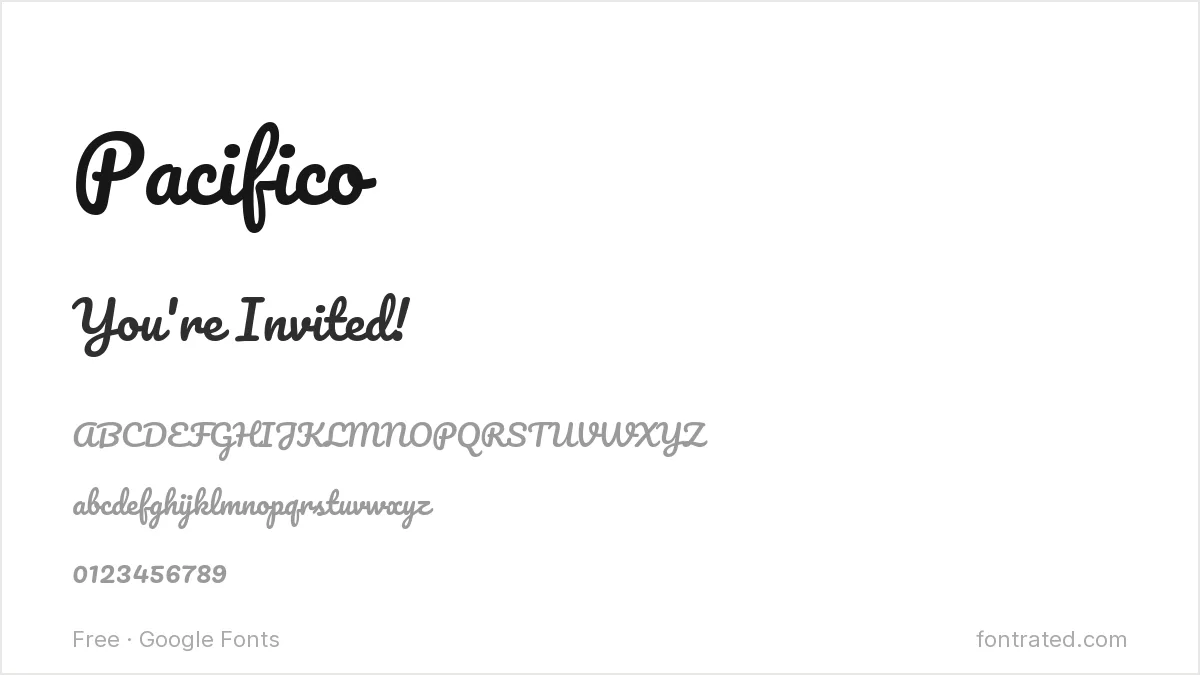
A retro brush script inspired by 1950s American surf culture, Pacifico brings an instantly recognizable, easygoing energy that suits a birthday party better than a more formal calligraphy script would.
Fredoka
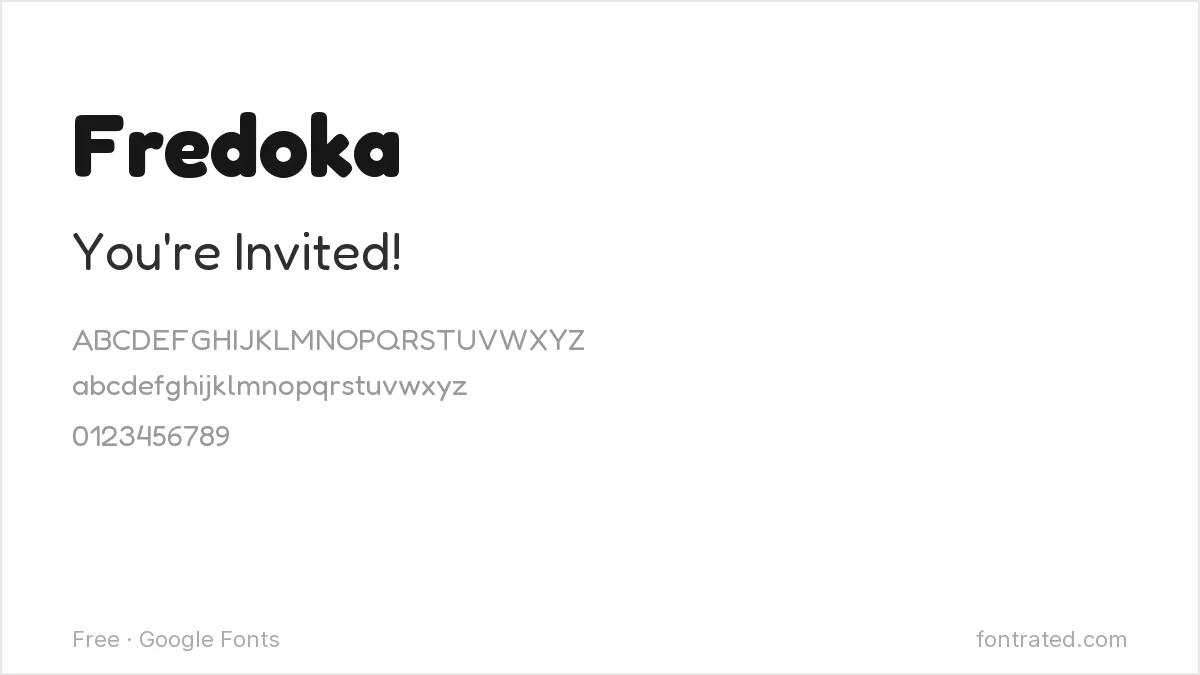
Fredoka’s rounded, friendly letterforms read as young and playful at heavier weights — a natural fit for a kids’ birthday or first-birthday invitation.
Baloo 2
A rounded, extra-bold display font originally designed for Indian scripts before growing a Latin counterpart, Baloo 2 has a chunky, toy-like quality that works well for a big, playful headline like a name or age.
Caveat
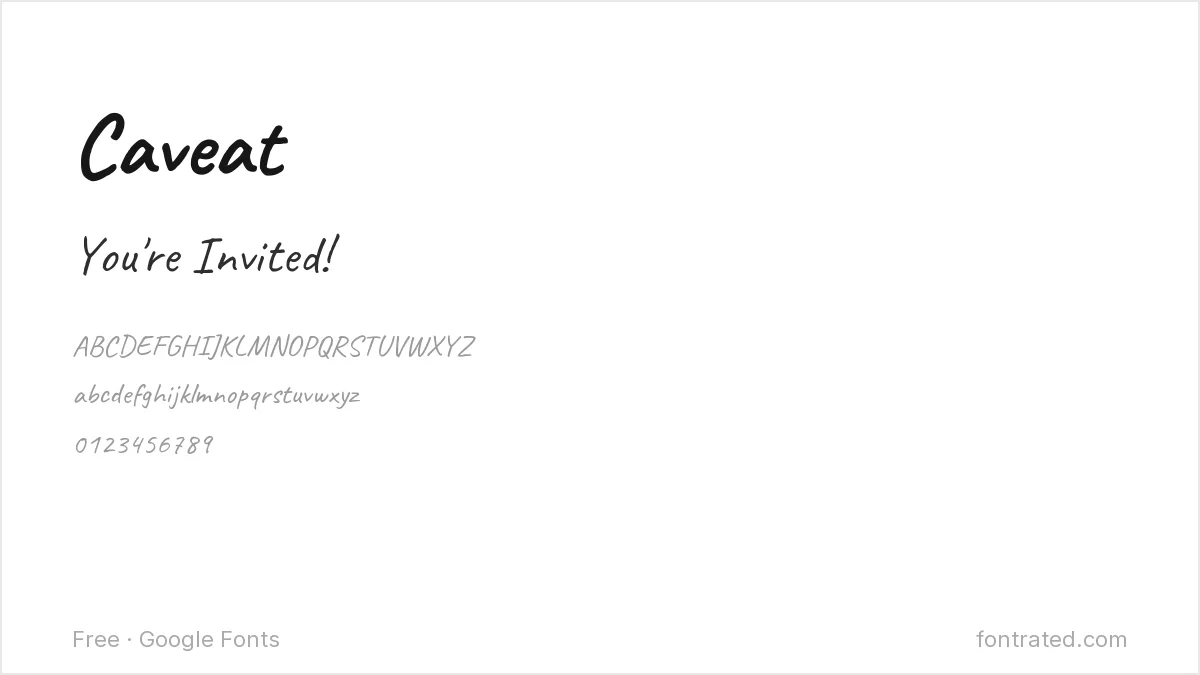
A natural handwriting font with real variation between letters, Caveat avoids the too-perfect look of a script font — good for a personal note or a casual “you’re invited” line.
Chewy
A bubbly, rounded display font with a slightly cartoonish bounce, Chewy suits a kids’ birthday theme that wants to feel fun and a little silly rather than polished.
Grand Hotel
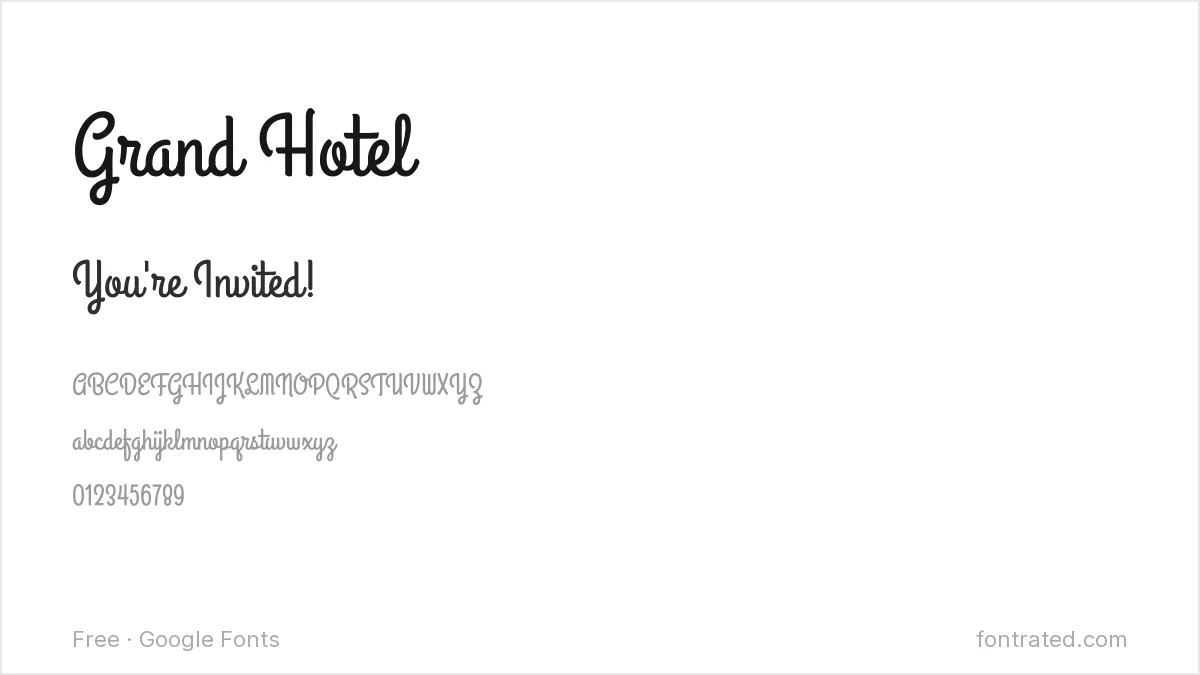
A more refined, flowing script than most of the fonts on this list, Grand Hotel works well for a milestone birthday (30th, 50th) or any adult celebration that wants a touch more elegance.
Comfortaa
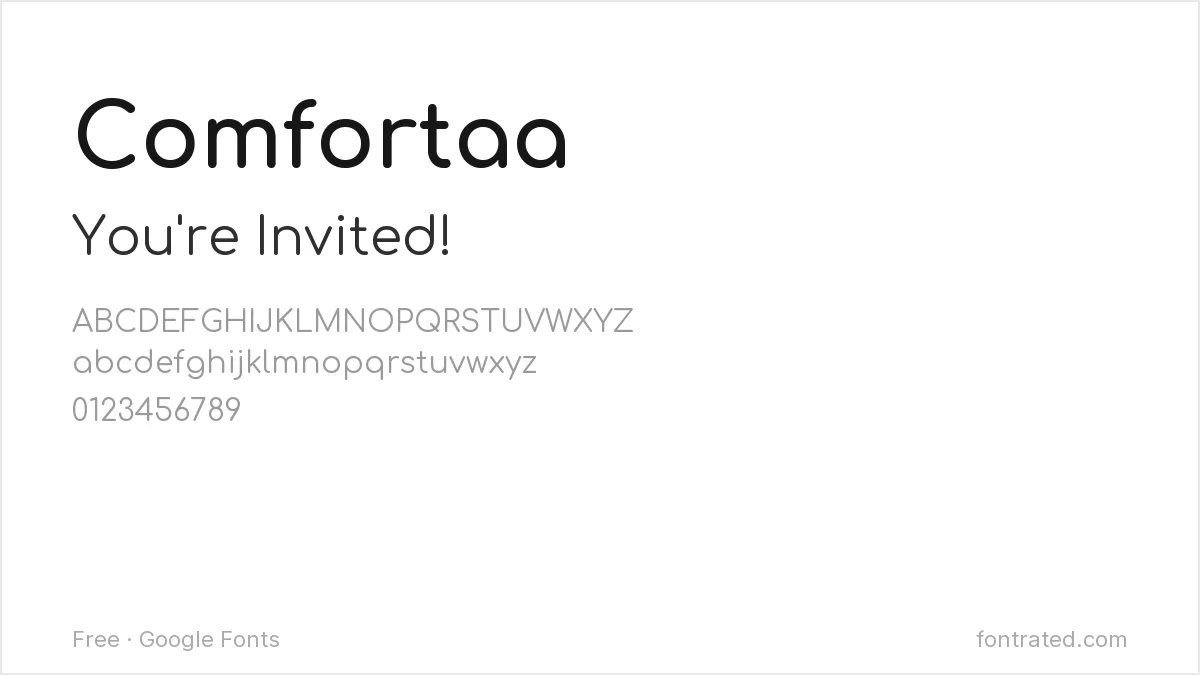
Rounded and geometric with a soft, bubble-like feel, Comfortaa gives a baby shower invitation a clean, modern look without leaning into an overtly “cute” aesthetic.
Sacramento
A relaxed, monoline script with a handwritten quality, Sacramento is a common choice for baby showers and gender reveals — casual rather than formal, but still legible.
Amatic SC
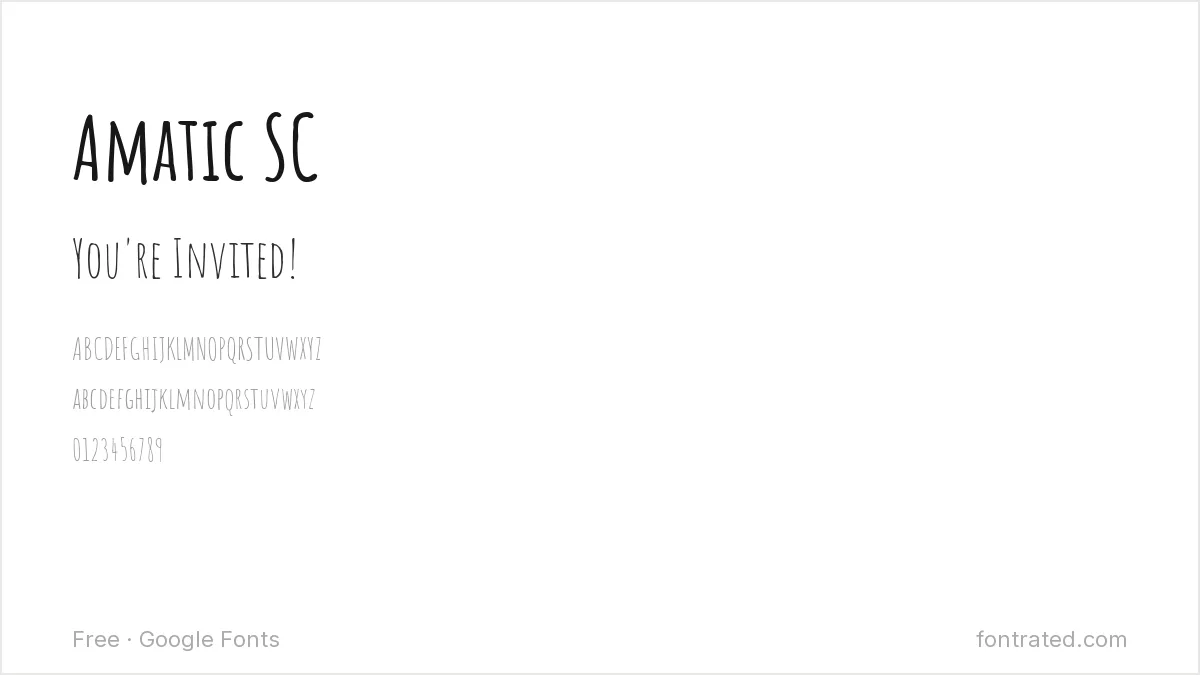
A tall, condensed, hand-drawn style font with a distinctive thin, slightly wobbly line quality, Amatic SC adds a whimsical, DIY-feeling touch to a party invitation headline.
Quicksand
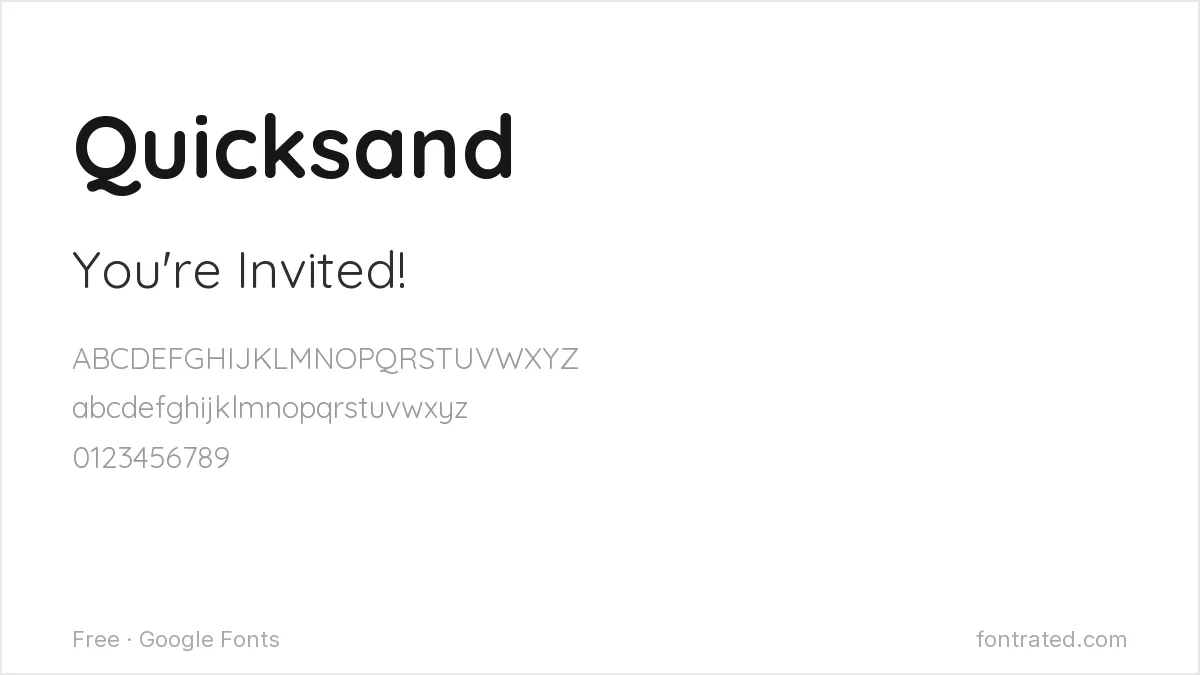
A rounded geometric sans that stays calm and legible even next to a louder script or display headline, Quicksand is a safe choice for the practical details (date, time, address) on any invitation in this list.
Which one should you actually pick? Pair a playful headline font (Pacifico, Baloo 2, Chewy) with a calmer body font (Quicksand, Comfortaa) for the practical details — the same one-headline-one-body pairing rule that works for wedding invitations applies here too, just with more room to have fun.
How many fonts should one invitation use?
Two is the safest number — one playful display or script font for the headline (the child’s name, “It’s a Boy!”, the age), and one calmer, more legible font for the practical details like date, time, and address.
Will a whimsical font like Amatic SC still be readable for older guests?
Test it at the actual size your practical details will print at — a hand-drawn or condensed display font can lose legibility for small text. It’s generally safer to reserve fonts like Amatic SC for a short headline and use a plainer font (Quicksand, Comfortaa) for anything guests need to actually read carefully, like the address.